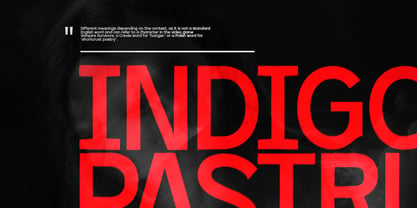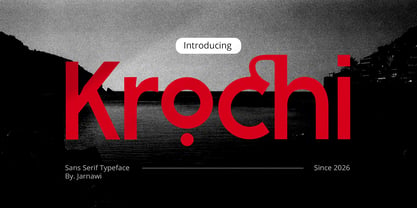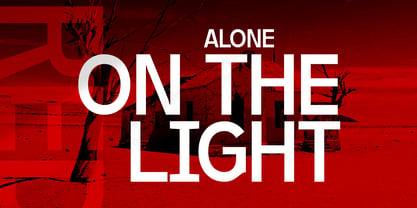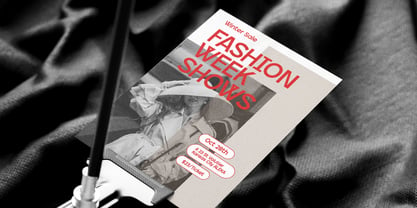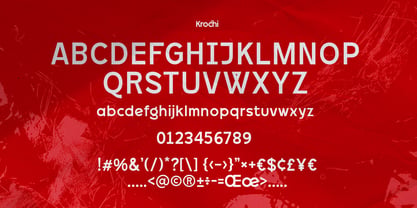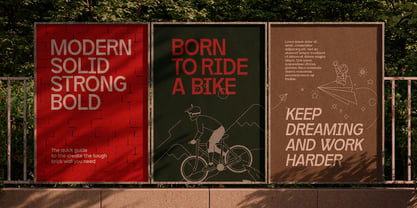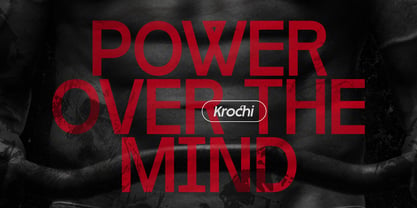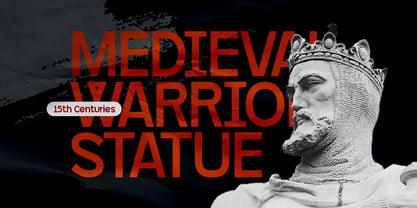
Krochi
Die Schriftfamilie Krochi wurde von Jarnawi Saja entworfen und von Grontype veröffentlicht. Krochi enthält 2 Stile und Familienpaketoptionen. Mehr über diese Familie
Kochi is a modern and stylish sans serif font designed to make a strong visual statement. With its clean lines and contemporary character, Kochi effortlessly captures attention while staying refined and readable. It’s a perfect choice for editorial layouts, bold headers, and product branding that needs a fresh, confident look. Whether used in print or digital design, Kochi brings clarity, elegance, and modern appeal to every composition. Thankyou for picking up this font, Happy designing.